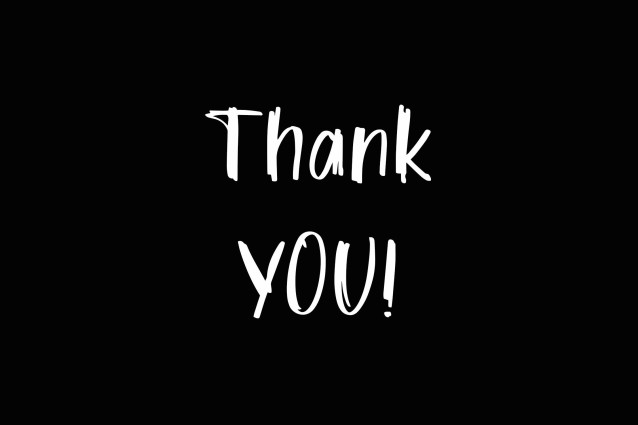
HandRush Font
HandRush Font is a dynamic handwriting font with a bold, rough style, perfect for adding a raw and authentic touch to your designs. With its unique character shapes, HandRush is ideal for creating eye-catching branding, packaging, or any creative project that demands a strong, edgy vibe.